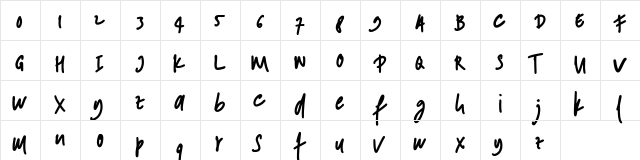
ANDONESI Regular
Design Context for ANDONESI Typeface
ANDONESI is a composed and adaptable typeface that performs quietly and consistently across a wide range of design contexts.